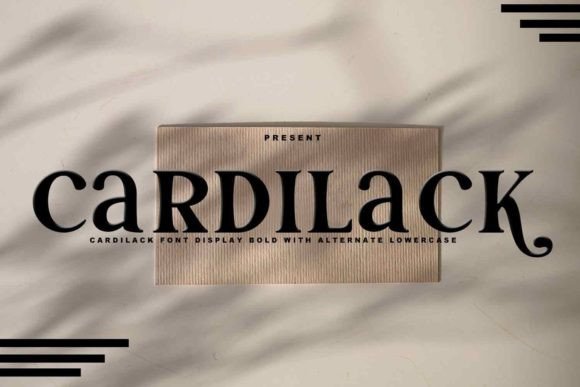
Introducing Cardilack Font: Elevate Your Designs with Elegance and Sophistication
Are you a designer or crafter looking for a font that exudes luxury and sophistication? Look no further than Cardilack Font, an elegant and fashionable display font that is sure to add a touch of glamour to any design project. With its sleek lines, refined curves, and luxurious feel, Cardilack Font is the perfect choice for those who want to create stunning designs that stand out from the crowd.
Cardilack Font is specifically designed to meet the needs of designers and crafters who want to add a touch of elegance and sophistication to their work. Whether you’re creating a logo, branding materials, or marketing collateral, Cardilack Font is the perfect choice. Its elegant and refined design makes it ideal for use in a variety of applications, from high-end fashion brands to luxury lifestyle products.
Key Features of Cardilack Font
• Elegant and Fashionable Design: Cardilack Font features a sleek and refined design that is sure to add a touch of glamour to any design project.
• Luxurious Feel: With its luxurious feel and sophisticated curves, Cardilack Font is perfect for designers and crafters who want to create high-end designs.
• Display Font: Cardilack Font is a display font, making it perfect for use in headlines, titles, and other display text.
• Easy to Read: Despite its elegant design, Cardilack Font is easy to read, making it perfect for use in a variety of applications.
How to Use Cardilack Font in Your Designs
Cardilack Font is easy to use and can be incorporated into a variety of design projects. Here are a few ways you can use Cardilack Font in your designs:
• Logos and Branding: Use Cardilack Font to create a luxurious and sophisticated logo that reflects your brand’s values and personality.
• Marketing Collateral: Use Cardilack Font in your marketing collateral, such as brochures, flyers, and posters, to add a touch of elegance and sophistication.
• Social Media Graphics: Use Cardilack Font to create stunning social media graphics that stand out from the crowd.
• Packaging Design: Use Cardilack Font to create luxurious and eye-catching packaging designs that reflect your brand’s values and personality.
Tips for Getting the Most Out of Cardilack Font
Here are a few tips for getting the most out of Cardilack Font:
• Use it Sparingly: Cardilack Font is a display font, so use it sparingly to add emphasis and create visual interest.
• Pair it with Other Fonts: Pair Cardilack Font with other fonts to create a unique and visually appealing design.
• Experiment with Colors: Experiment with different colors and textures to add depth and interest to your design.
In conclusion, Cardilack Font is an elegant and fashionable display font that is sure to add a touch of luxury and sophistication to any design project. With its sleek lines, refined curves, and luxurious feel, Cardilack Font is the perfect choice for designers and crafters who want to create stunning designs that stand out from the crowd. So why wait? Download Cardilack Font today and start creating your own luxurious designs!